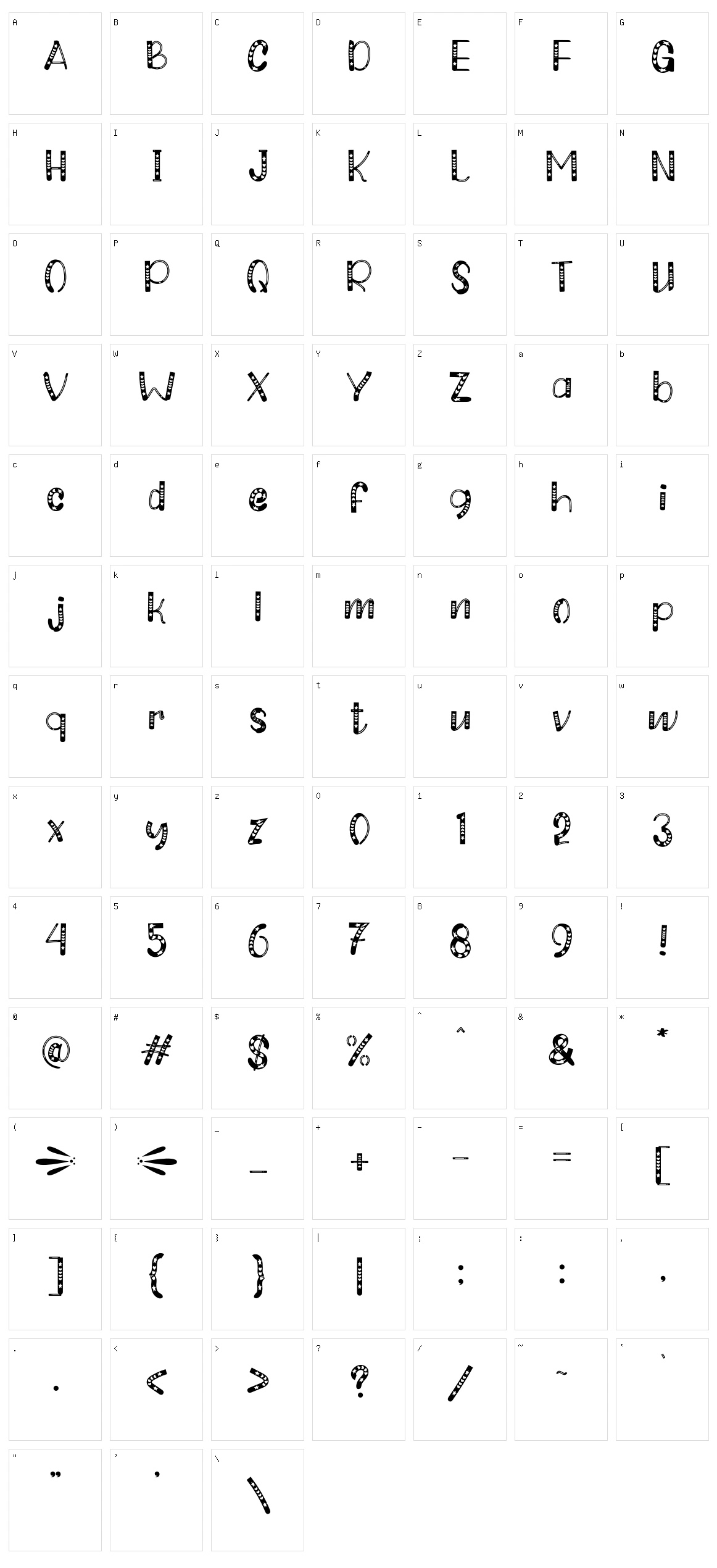
The free font Unicorn Style is carefully designed by Doni Dorra, showcasing a thoughtful balance of creativity and usability and falls under the Decorative font style. When you download the ZIP file, it contains only 187.47 KB of font files, making it lightweight and quick to download. Please review the license details below to understand permitted usage and distribution rights. If license information is not available, we recommend using this font for personal projects only or contacting the author directly for commercial usage permissions.